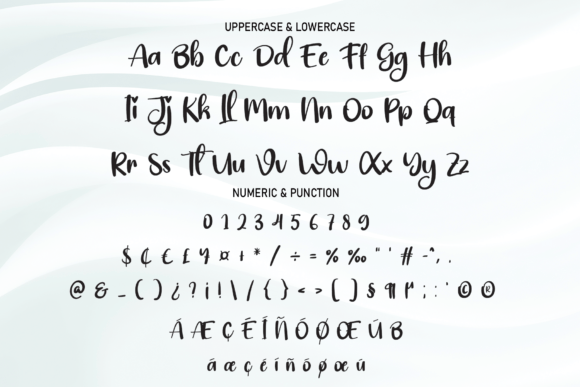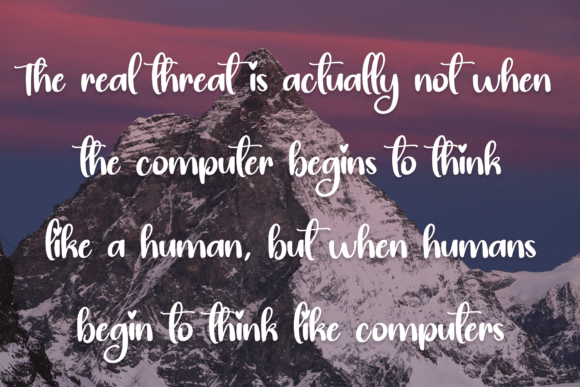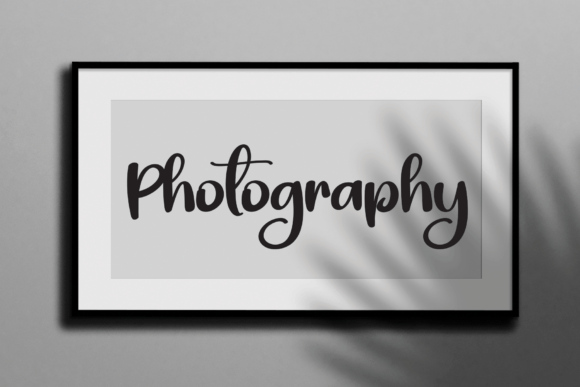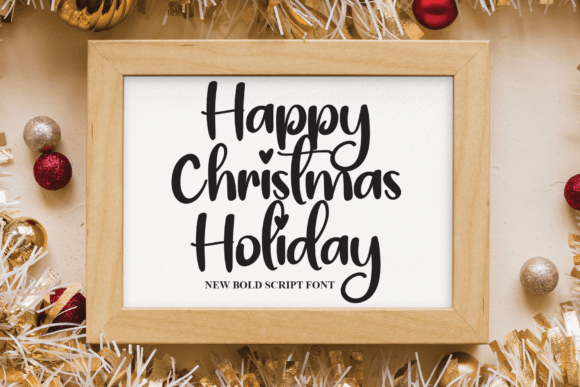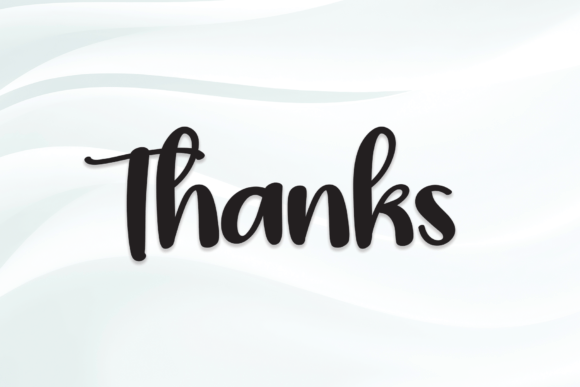
Welcome Signature Font
About Welcome Signature Font
Introducing Welcome Signature, a font featuring the latest style letters that are perfect for a wide range of creative projects. Crafted with a handwritten touch, Welcome Signature adds a warm and personal feel to your designs. This versatile typeface is well-suited for wall displays, wedding invitations, social media post logos, advertisements, product packaging, product designs, labels, photography, watermarks, invitations, stationery, and any project that demands a handwritten taste.
The latest style letters in Welcome Signature bring a contemporary and stylish flair to your text, making it suitable for various applications. Whether you’re creating wall displays to grab attention, designing wedding invitations for a personal touch, or crafting social media logos that stand out, Welcome Signature adapts seamlessly to your creative needs.
For advertisements, Welcome Signature becomes a key element in creating a relatable and approachable visual identity. Its handwritten taste adds authenticity, making your ads more engaging and memorable.
In product packaging and designs, Welcome Signature brings a touch of warmth and personality. The handwritten style enhances the overall aesthetics, making your products more appealing to consumers.
Labels and watermarks benefit from the personalized and human touch of Welcome Signature. It adds a layer of authenticity to your branding, ensuring that your designs leave a lasting impression.
Photography and stationery find a charming companion in Welcome Signature. Whether you’re watermarking images or creating personalized stationery, the handwritten taste of this font adds a delightful and inviting touch.
In summary, Welcome Signature is more than just a font; it’s a creative tool designed to bring a handwritten taste to your projects. Whether you’re working on wall displays, invitations, social media graphics, or product packaging, let Welcome Signature be the choice that adds a warm and personal feel to your creative endeavors.